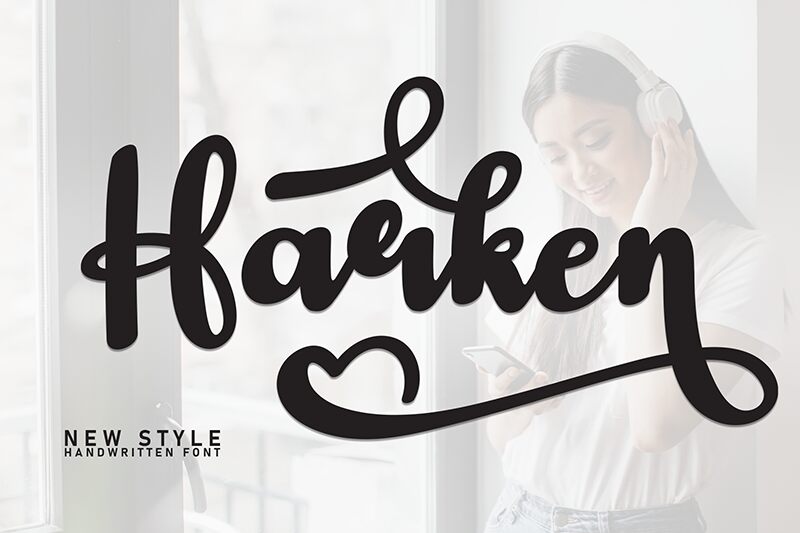
Harken
Harken font by Andi Moz is a casual free brush font that showcases modernity and fluidity with every stroke. This script typeface, expressive and cohesive, displays an energetic mood that finds its place in both classic and contemporary designs. The elegant flow of the letters showcases a smooth rhythm making for a wonderful reading experience.